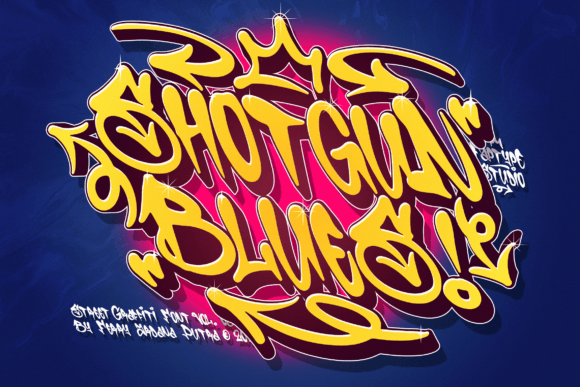
Shotgun Blues: The Ultimate Urban Graffiti Font
In the crowded landscape of digital typography, finding a typeface that genuinely captures the chaotic energy of street art without sacrificing legibility is a rare challenge. Shotgun Blues addresses this gap by offering a bold and expressive freestyle graffiti font designed to translate the raw pulse of the streets onto any creative canvas. For designers, marketers, and creatives who need to communicate an unapologetically urban vibe, this tool is more than just a collection of characters; it is a strategic asset for visual storytelling. Whether you are launching a new streetwear line, designing album artwork, or creating campaign materials for a youth-centric brand, the right typographic choice can define the entire aesthetic direction of your project.
Capturing the Spirit of Freestyle Graffiti
The essence of graffiti lies in its spontaneity and the fluid motion of the artist's hand. Static, rigid fonts often fail to convey this dynamic nature, resulting in designs that feel manufactured rather than authentic. Shotgun Blues embodies the spontaneous and dynamic nature of freestyle graffiti by incorporating the DNA of street art directly into its structure. Each character is crafted with fluid strokes, sharp angles, and an unmistakable urban attitude that mimics the spray-painted walls found in cities worldwide.
This attention to detail matters significantly for professionals working in hip-hop culture, music production, and urban fashion. When a viewer encounters a design using this font, they immediately associate the message with the rebellious edge and cultural depth of street art. This psychological connection allows brands to bypass traditional advertising barriers and speak directly to their audience on a cultural level. Instead of simply stating that a product is "cool" or "edgy," the typography itself demonstrates these qualities, creating a stronger emotional resonance with the target demographic.
Enhancing Visual Impact with Ornaments and Accents
One of the most practical advantages of Shotgun Blues is the inclusion of a comprehensive set of additional graffiti ornaments. In professional design workflows, time is a critical resource. Creating custom drips, tags, and artistic accents from scratch requires significant skill and hours of labor. By providing these elements as integrated assets, the font streamlines the creative process while ensuring a high level of authenticity.
These ornaments allow you to embellish your text with tags, drips, and artistic accents, providing an authentic street art experience that feels organic rather than tacked on. For instance, a graphic designer working on a limited-edition sneaker release can use these elements to add texture and movement to the branding, making the packaging stand out on retail shelves. Similarly, social media managers can quickly generate eye-catching graphics for Instagram or TikTok campaigns, leveraging these pre-designed accents to maintain a consistent and edgy aesthetic across all platforms without needing to hire external illustrators.
The ability to customize designs with these graffiti-inspired ornaments opens up a truly unique and edgy aesthetic. It empowers creators to experiment with layout and composition, turning standard headlines into complex visual statements. This flexibility is particularly valuable for small business owners and freelancers who must wear multiple hats, balancing design quality with tight deadlines.
Adding Depth with Extruded 3D Typography
Taking graffiti to the next dimension, Shotgun Blues introduces an extruded version that transforms flat text into eye-catching 3D graffiti with depth and impact. This feature addresses a common limitation in digital design: the struggle to create immersive visuals that pop off the page or screen. Standard two-dimensional fonts often lack the physical presence required to command attention in busy environments like billboards, concert posters, or mobile app interfaces.
The extruded capability allows designers to manipulate light, shadow, and perspective, creating a sense of volume that draws the viewer in. This is not merely a stylistic flourish; it serves a functional purpose in hierarchy and readability. A headline rendered in 3D naturally commands more visual weight, guiding the user's eye through the content flow more effectively than flat text. For projects such as album covers, street art campaigns, or event promotions, this depth adds a layer of sophistication that elevates the perceived value of the work.
Consider a marketing team planning a launch event for a new urban lifestyle brand. Using the extruded version of the font for the main poster creates a tactile, almost tangible feel that encourages engagement. It suggests that the brand itself has substance and presence. This technique can also be applied to digital advertisements, where the illusion of depth can increase click-through rates by breaking the monotony of flat web layouts.
Strategic Applications Across Industries
While rooted in street culture, the utility of Shotgun Blues extends beyond niche markets. Professionals in various sectors can leverage its distinctive style to achieve specific communication goals:
- Musicians and Record Labels: Album art and tour merchandise require immediate visual impact. This font provides the aggressive, energetic look associated with rap, rock, and electronic music genres, helping artists establish a strong visual identity.
- Fashion and Streetwear Brands: Logos, tags, and promotional materials benefit from the font's rebellious edge. It signals to consumers that the brand is contemporary, bold, and connected to current cultural movements.
Ultimately, Shotgun Blues represents a convergence of artistic expression and practical utility. It empowers creators to unleash the raw energy of the streets onto their projects with precision and ease. By combining fluid freestyle aesthetics, customizable ornaments, and immersive 3D capabilities, it solves the problem of how to authentically represent urban culture in digital and print media. For those seeking to strengthen their visual communication, save time on asset creation, and deliver a statement that resonates with a modern audience, this font offers a compelling solution. It is not just about making things look cool; it is about choosing the right visual language to tell a story that matters.